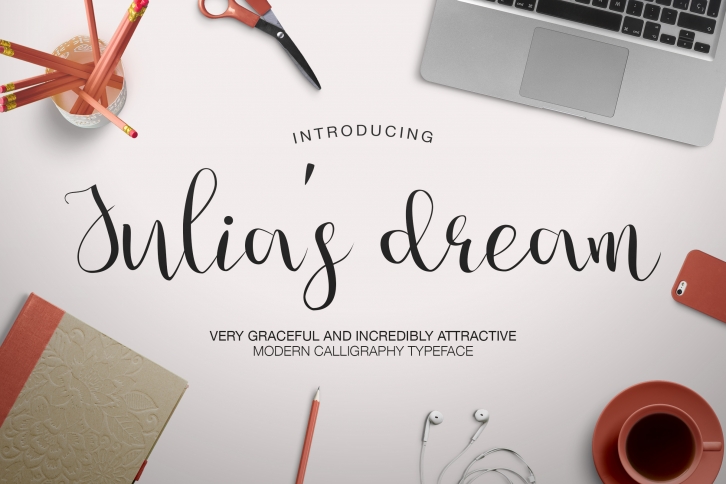
Julias Dream is a beautiful font that was designed by MediaLab. It's a great choice for designers and creatives who need such a font. It was released on May 30, 2016 and the file size is 13.39 MB. Julias Dream may give a more youthful, expressive and casual look to your project. It is a very beautiful, refined, elegant, and high-quality font.